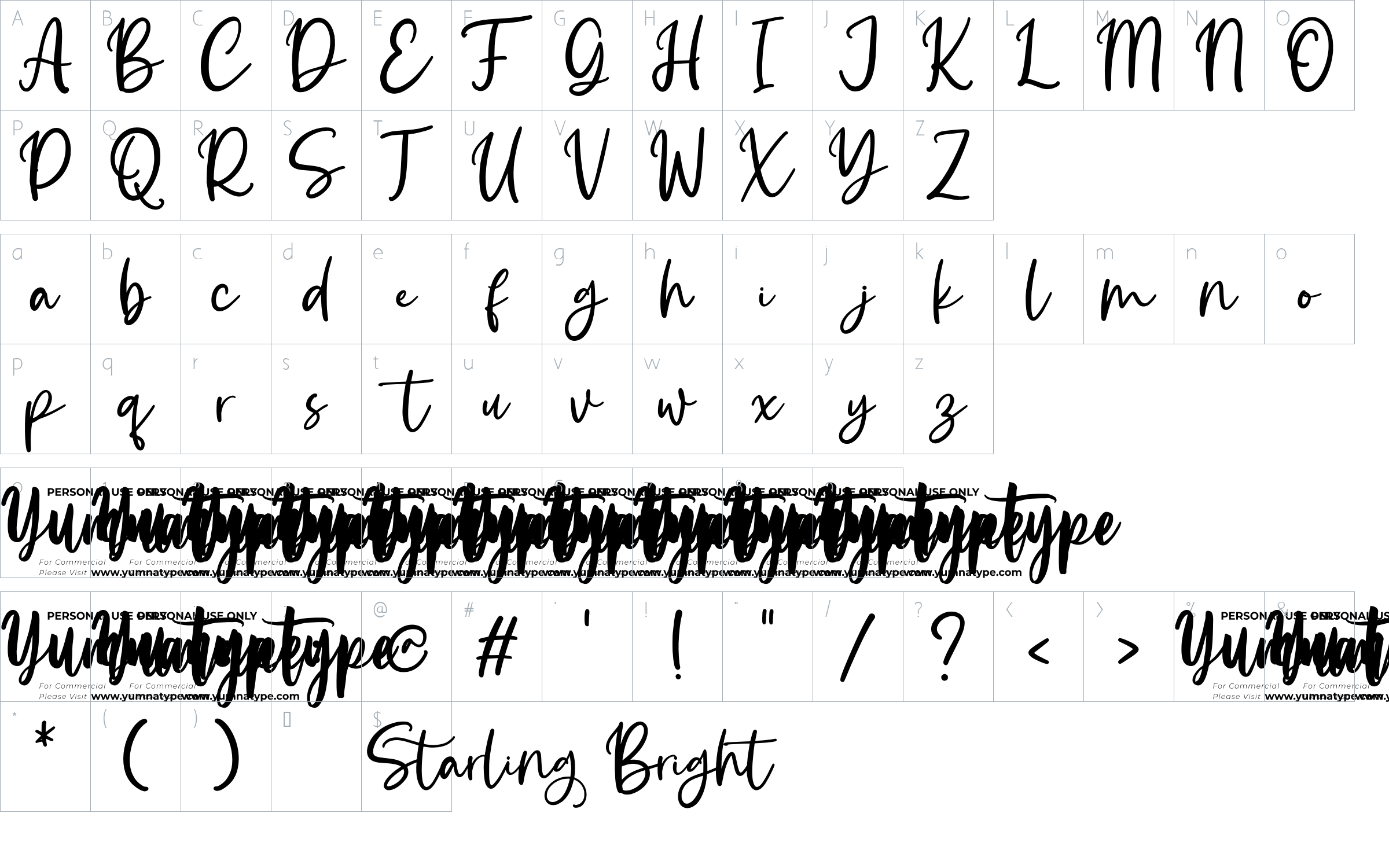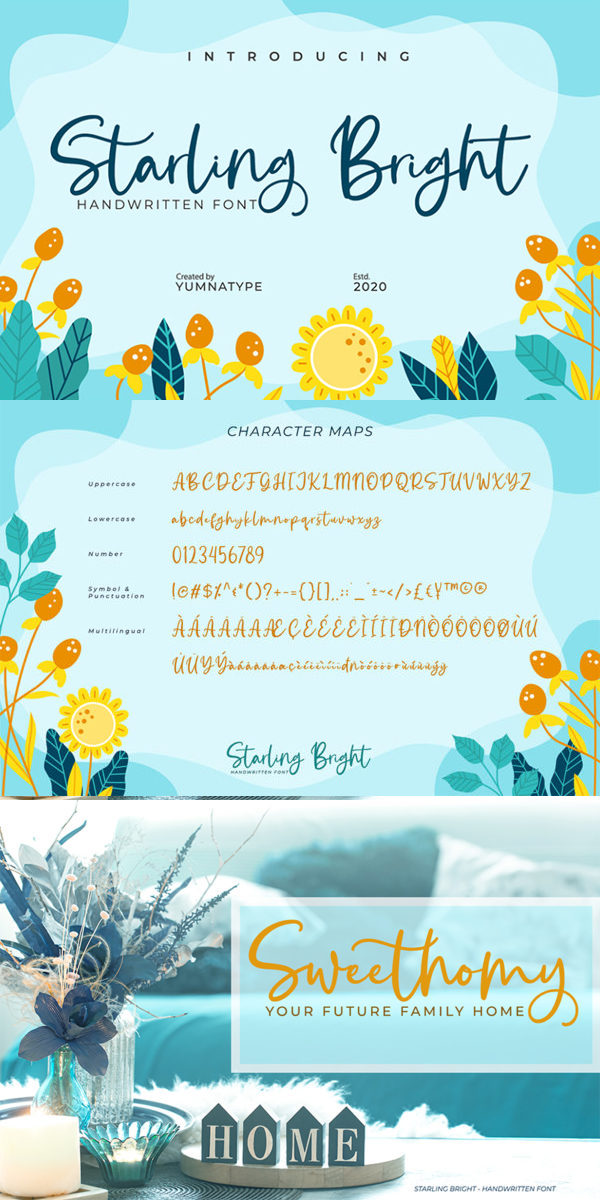
Starling Bright Font
About Starling Bright
Starling Bright is a elegant handwritten font with a natural and unique design will make your project more beautiful. The font is suitable for your branding project, printing, logos dan wedding.